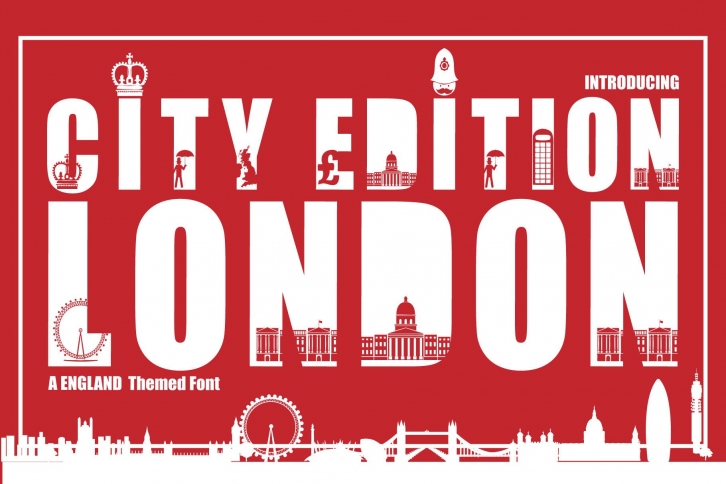
London City Edition is a bold and incredibly cool decorative font. It can be used for various design ideas, particularly those related to the glamorous life in big cities. Have fun with this beautiful font and explore its endless variations.